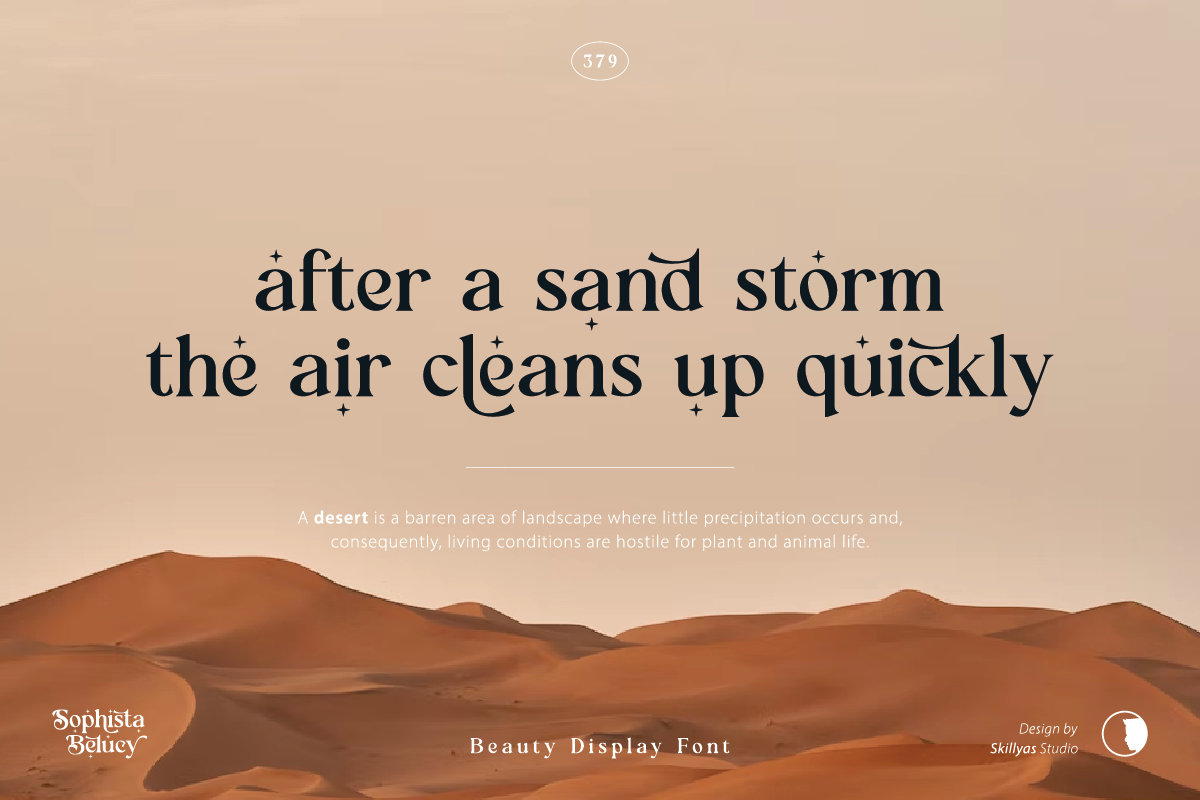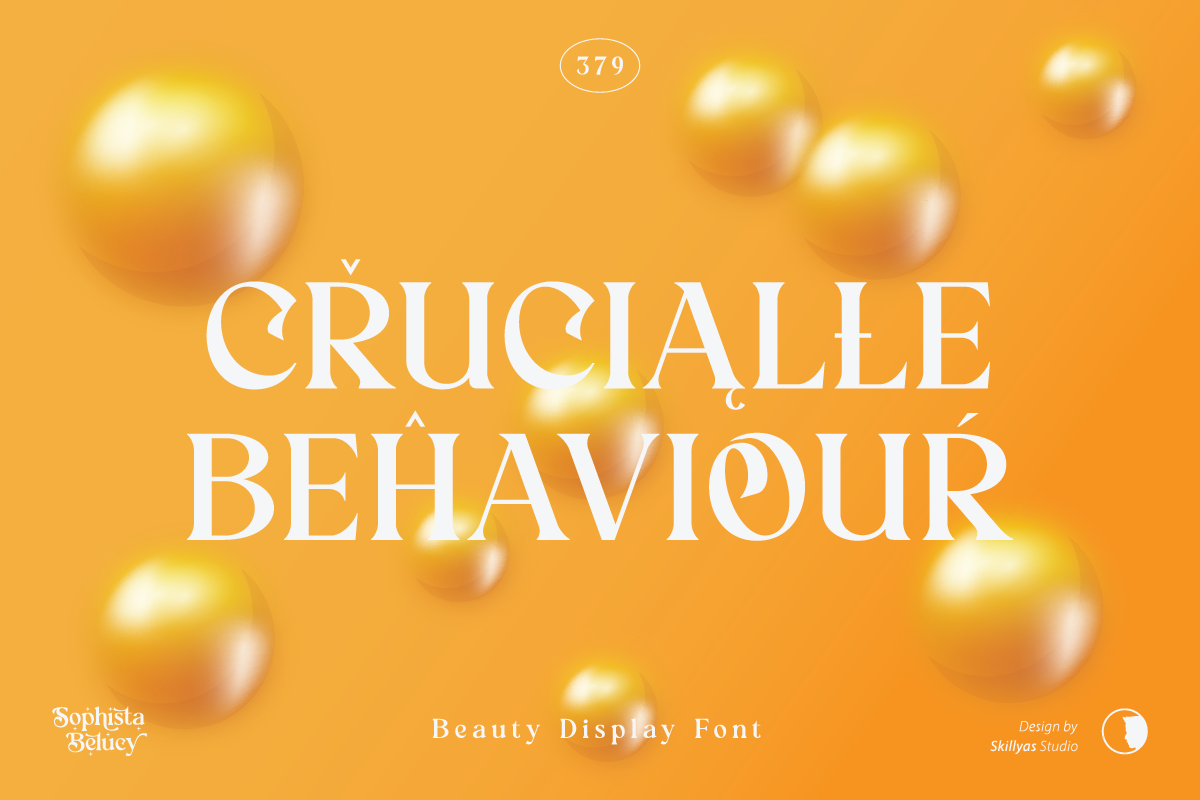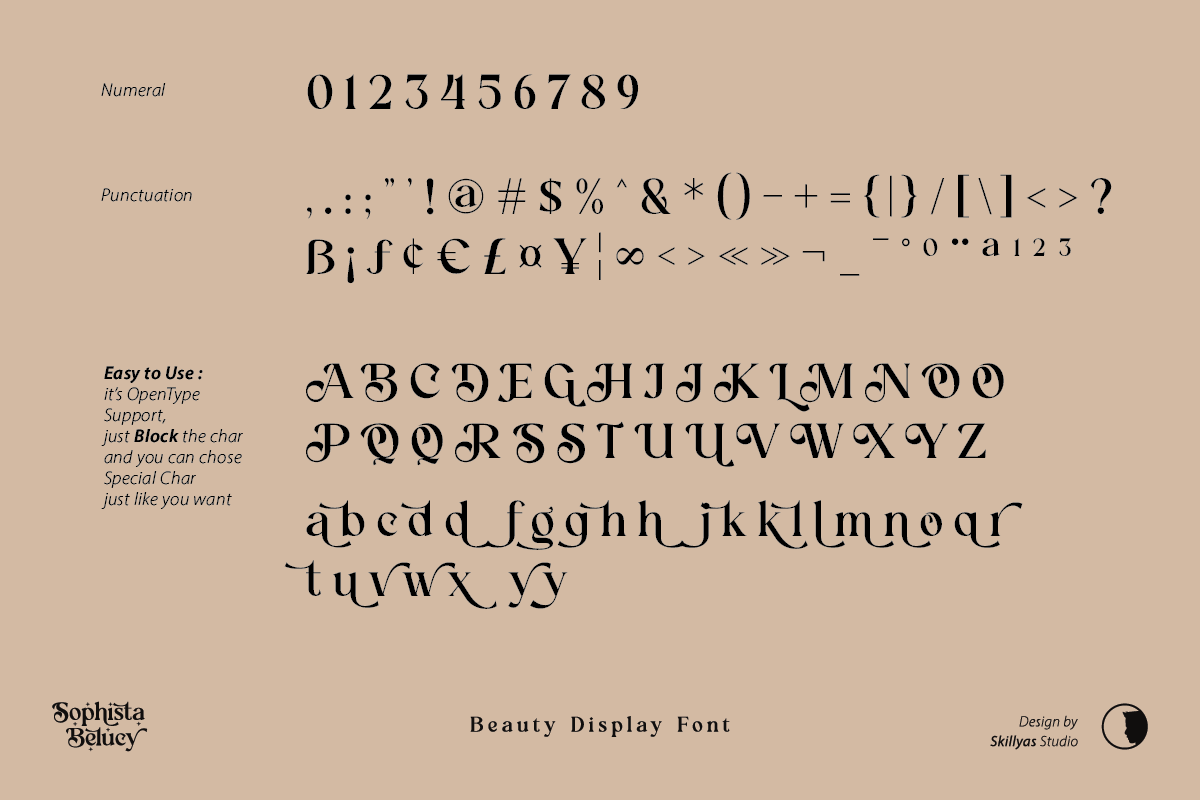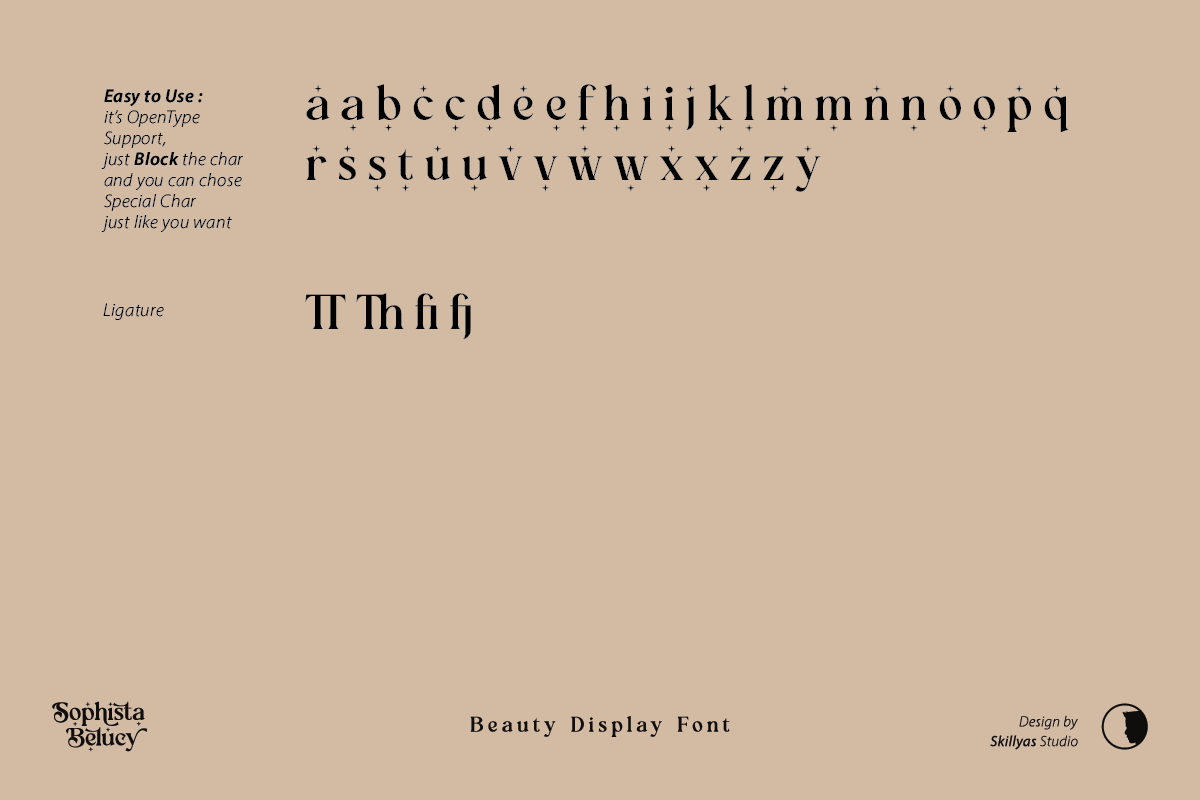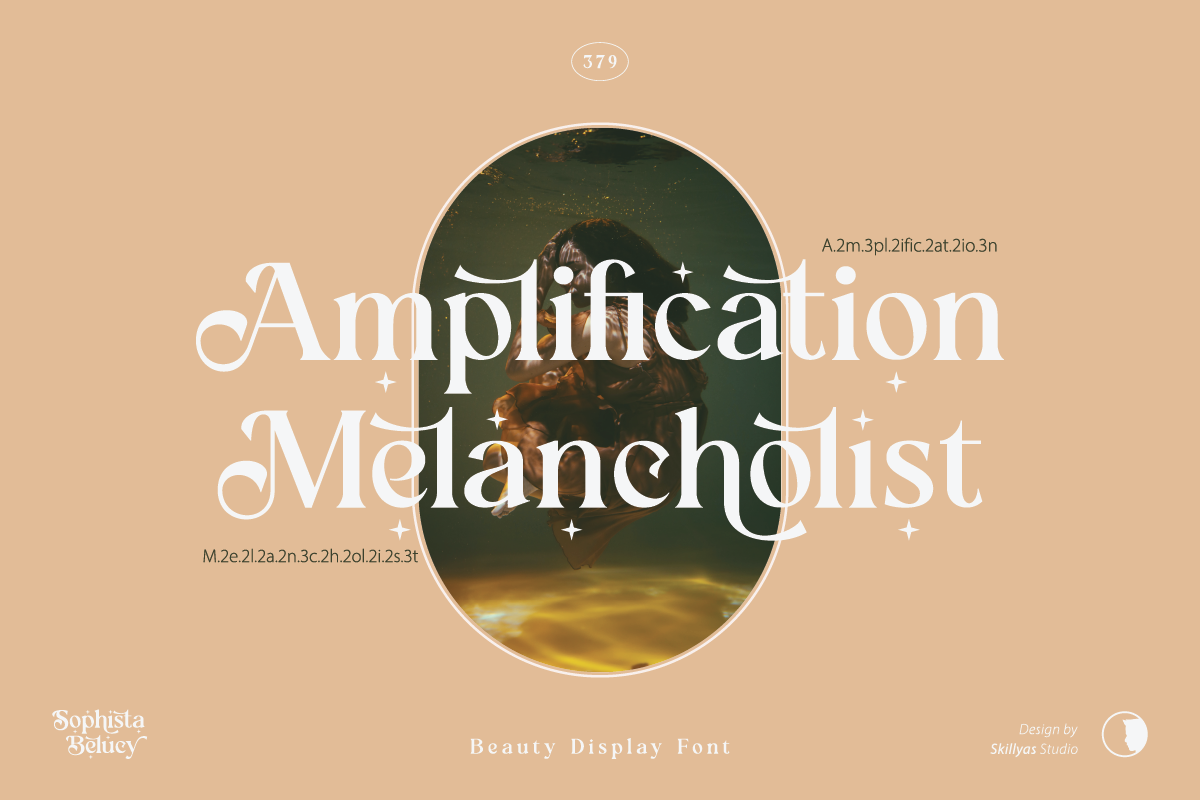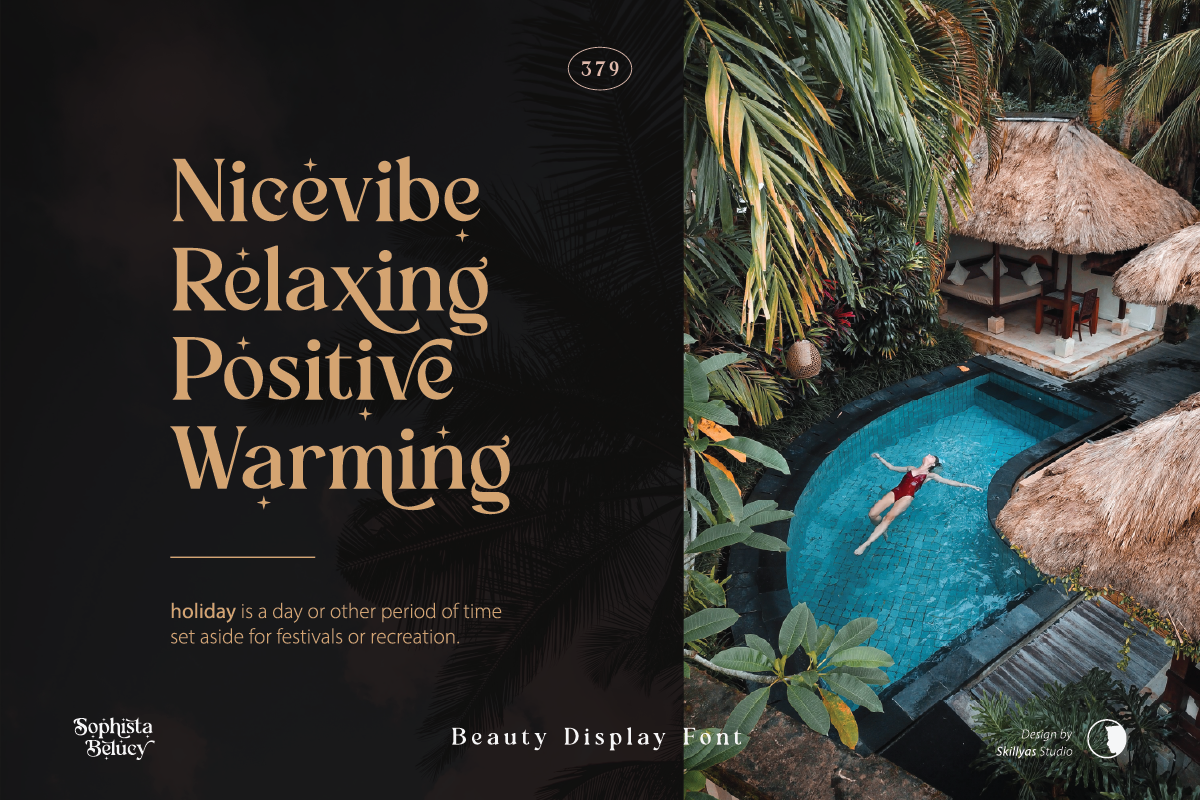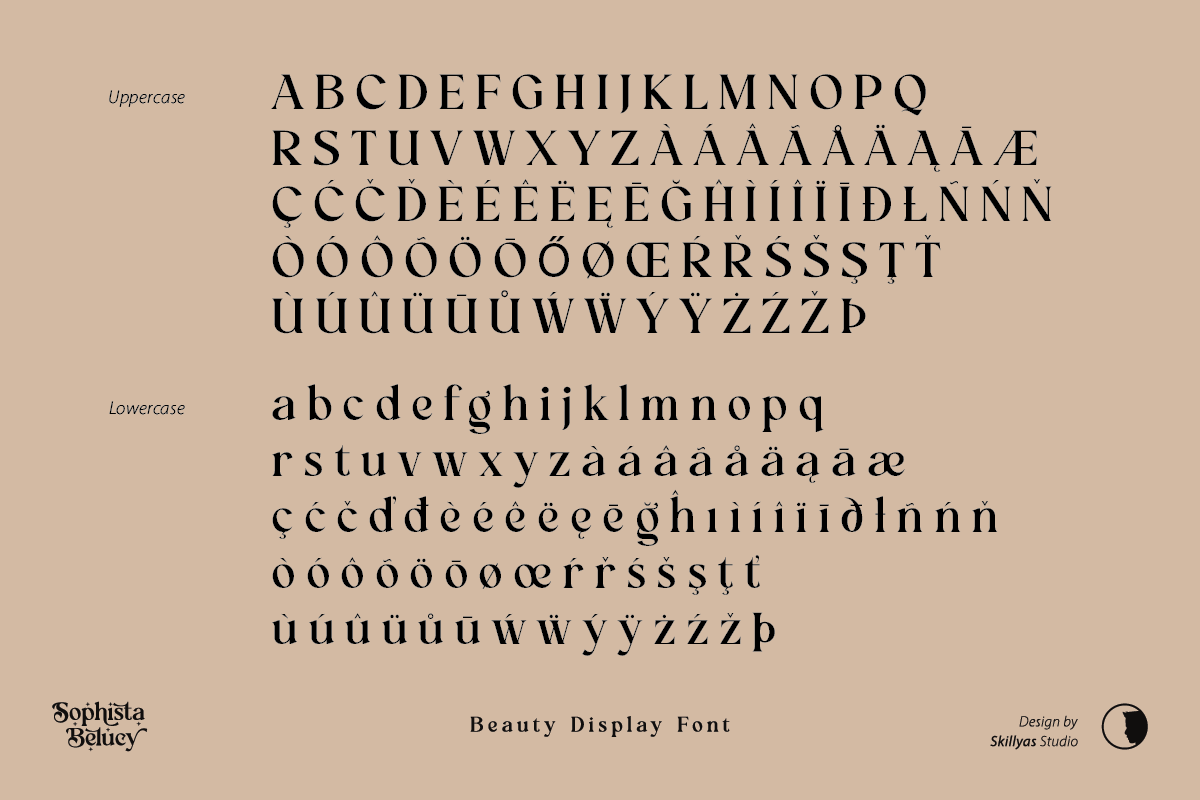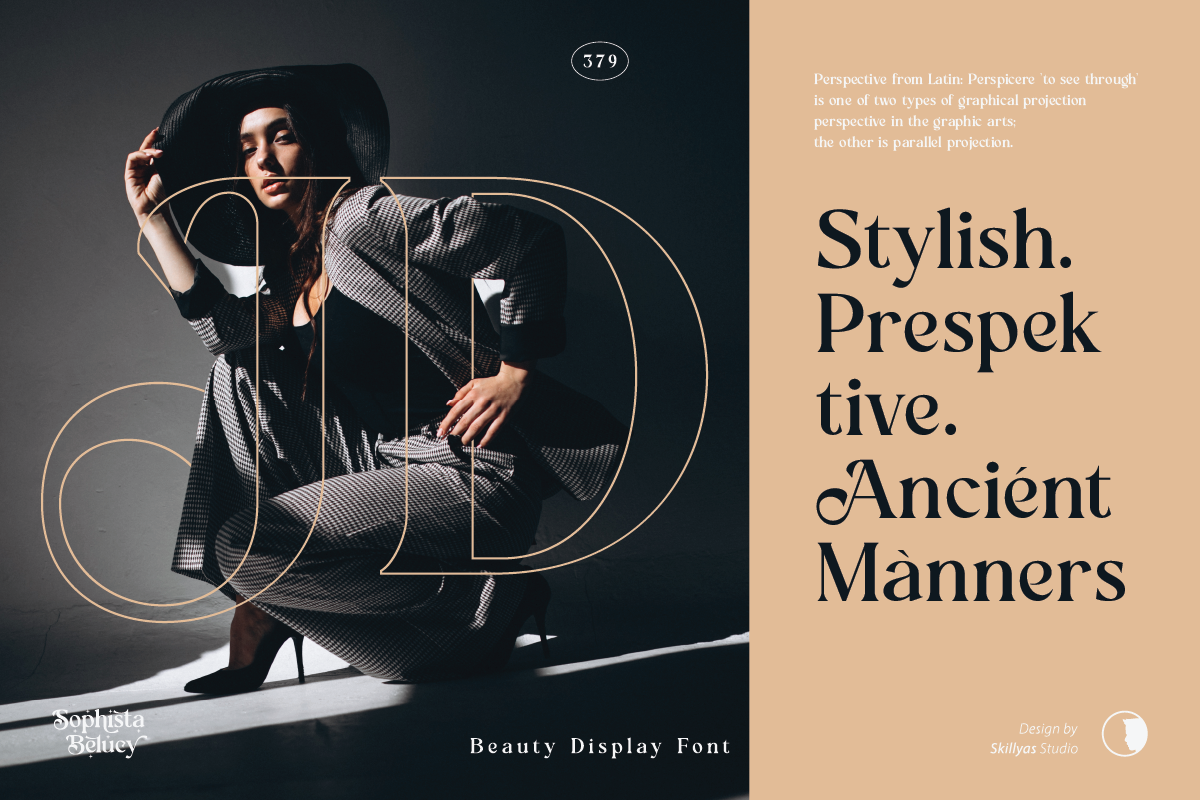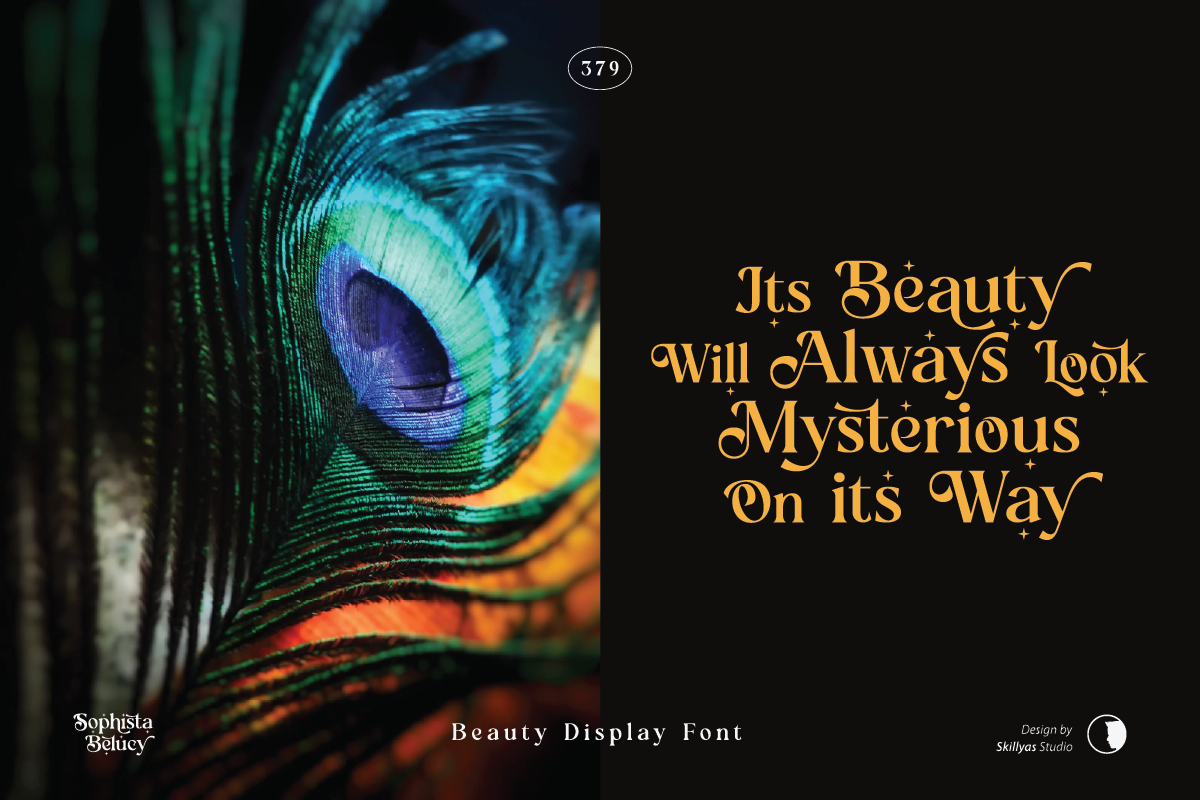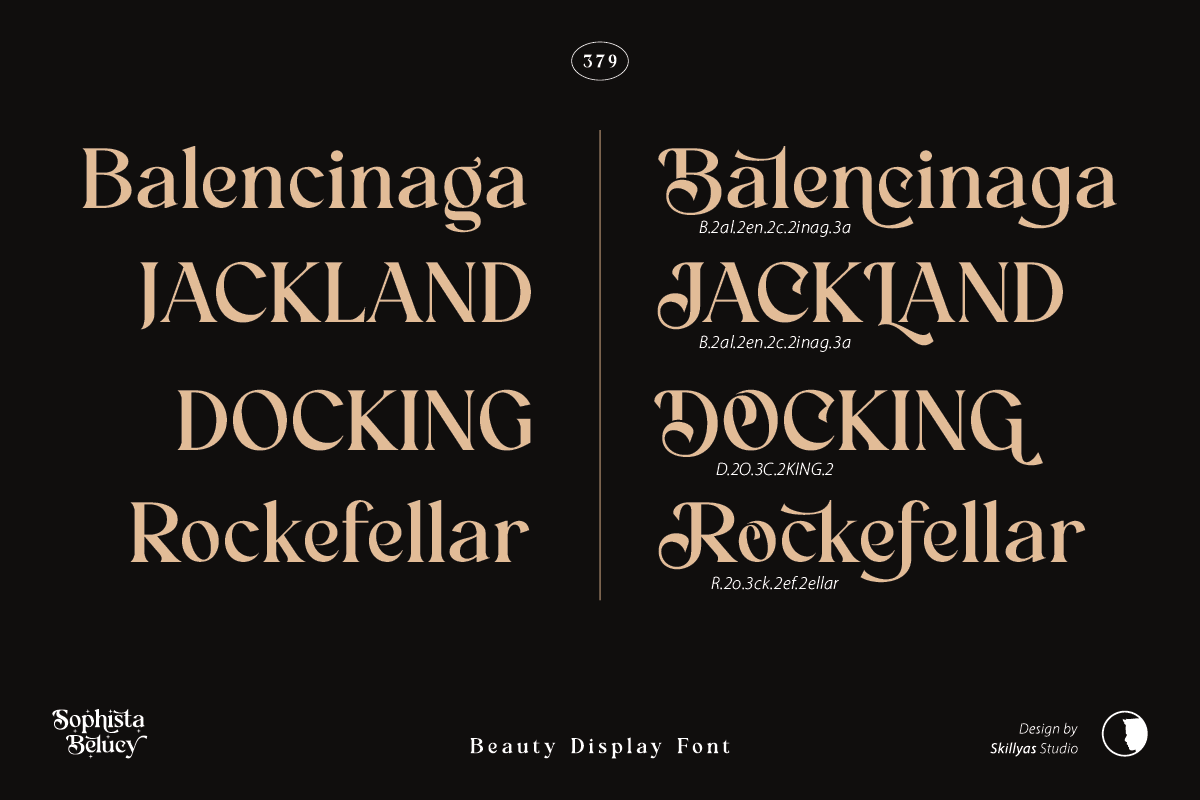
Sophista Belucy Display Beauty Font
Sophista Belucy is a Beauty display font inspired by the free style of writing with a bold and shining impression.
Sophista Belucy comes with 379 glyphs, including special uppercase and lowercase letters, beautiful alternate characters, and ligatures.
- Ligature & Alternate